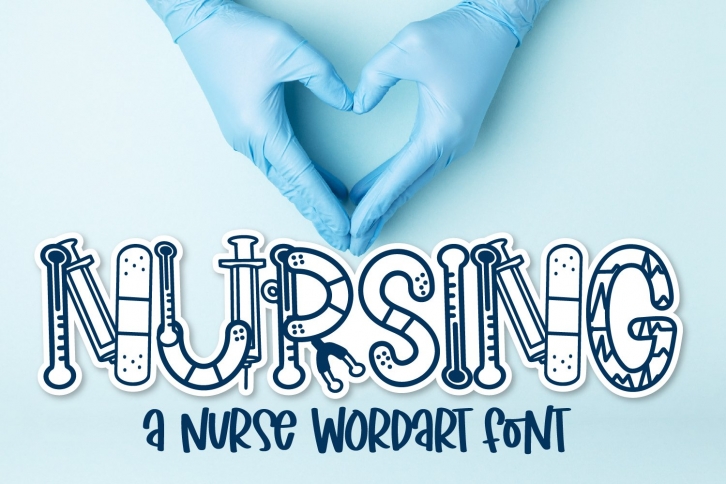
Nursing is a trendy and unique font with an authentic style. It was designed by Justina Tracy and it's a great choice for creative people who need such a font. It was released on February 4, 2021 and the file size is 12.38 MB. Nursing will add an organic vibe to any design idea!